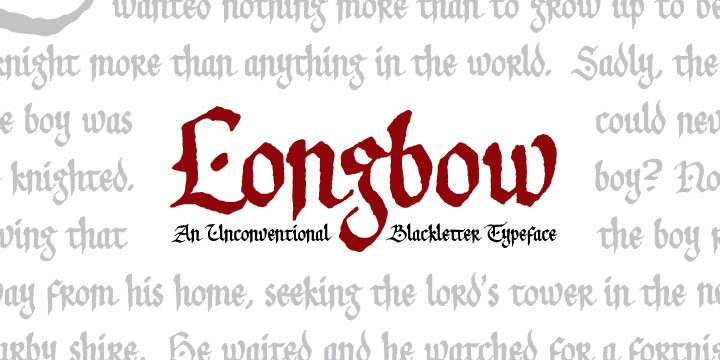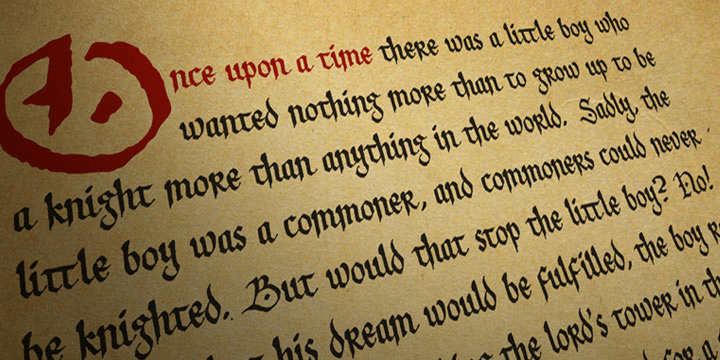
Longbow BB
Font Family by Blambot
Longbow BB is an unconventional gothic/blackletter typeface with a hefty compliment of European characters. The Opentype version has autoligatures to make any two adjacent, duplicate letters or numbers look slightly different for a more hand-lettered look.